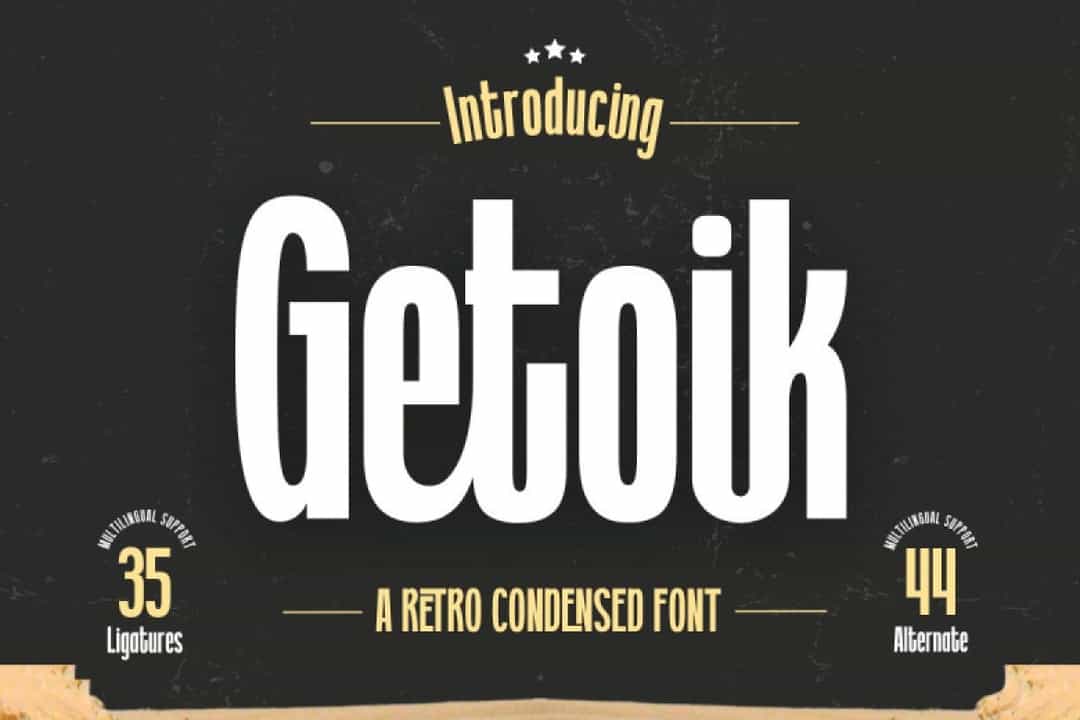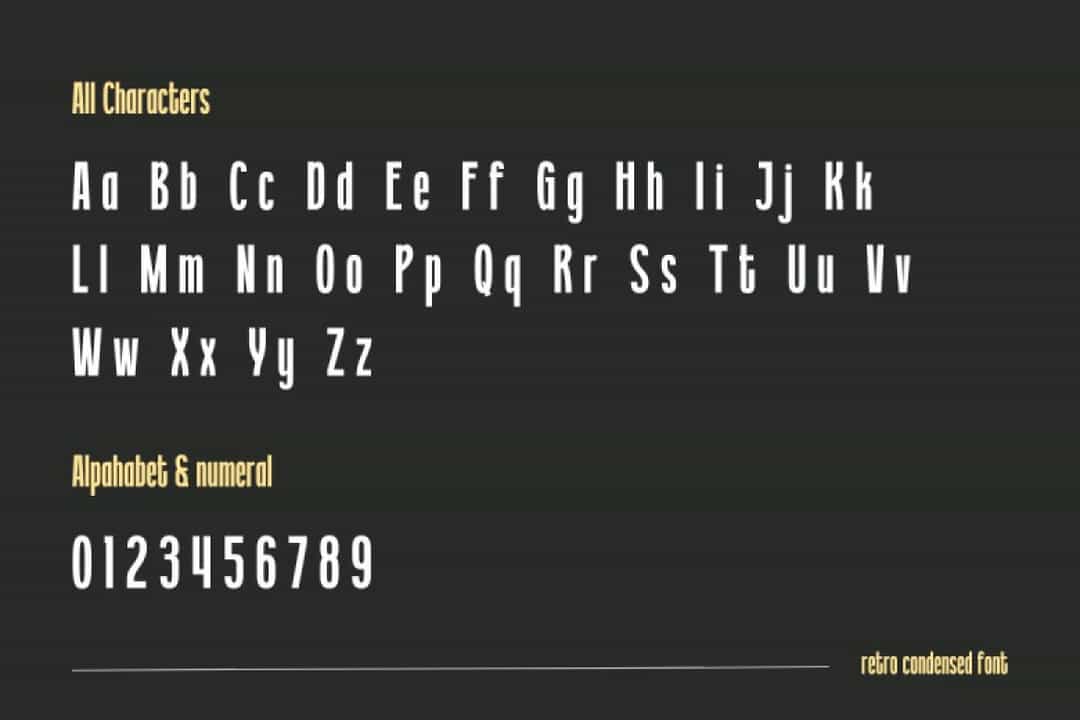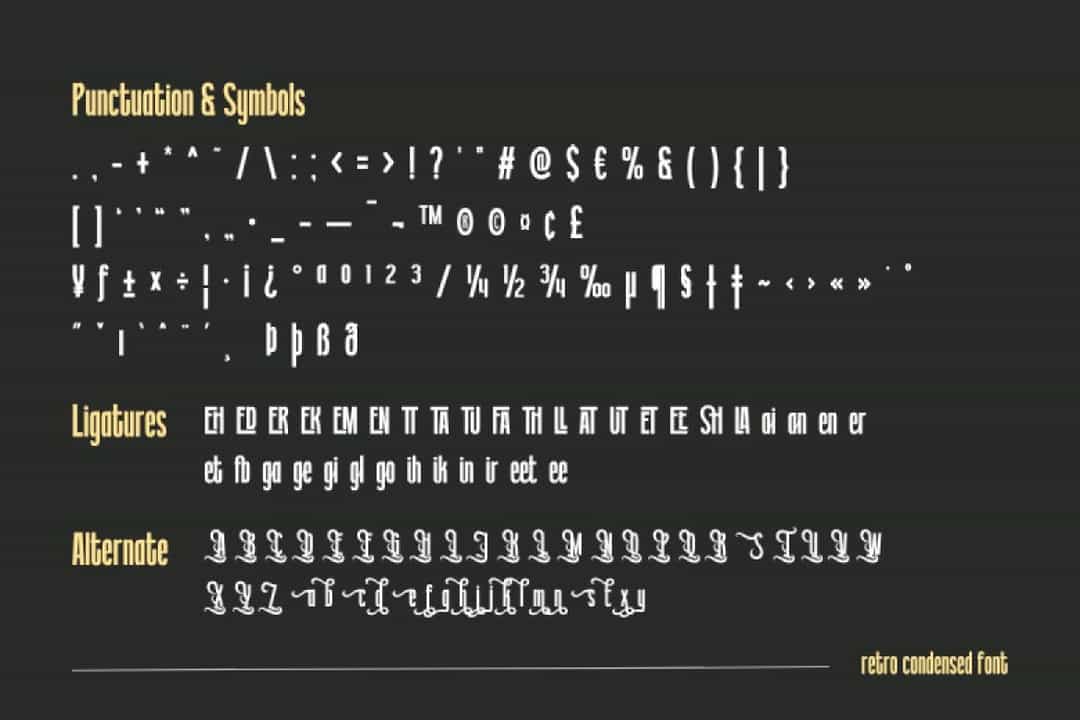
Getoik, our Retro Condensed Font, can bring design concepts to an all-new level. Featuring its smooth edges and variety of ligatures and alternate fonts, Getoik gives designers more design choices to consider when creating designs.